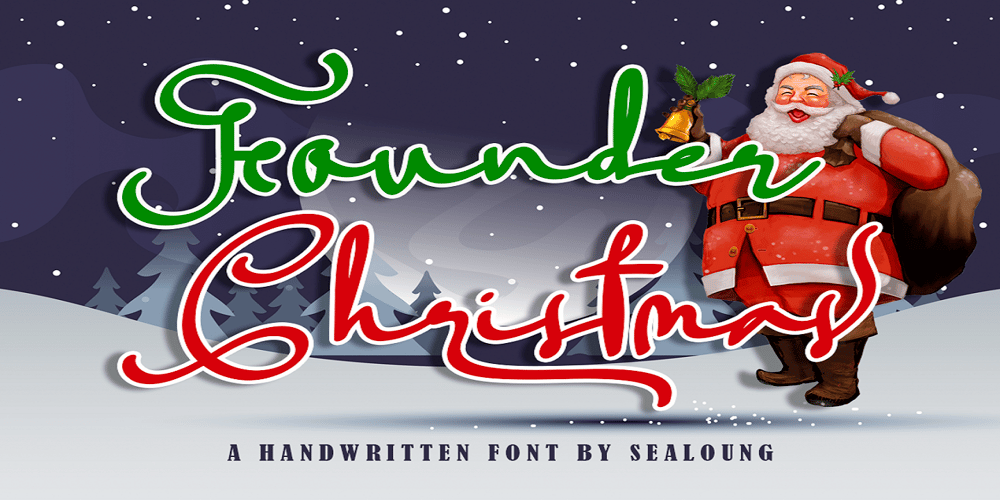
Founder Christmas Font Family was designed by Saiful Anwar and published by Sealoung. Founder Christmas contains 1 styles and family package options. Founder Christmas is an elegant script font, that features a very delicate and classy look. Not too thin and not too thick, balanced and varied, this font was designed to enhance the beauty of your projects.